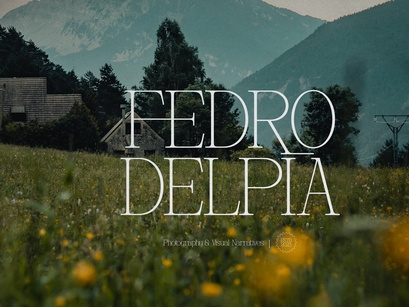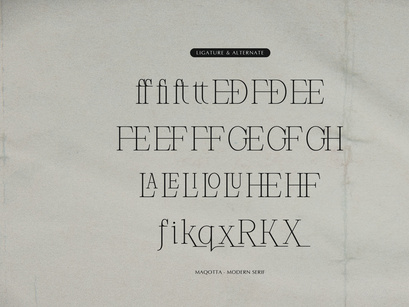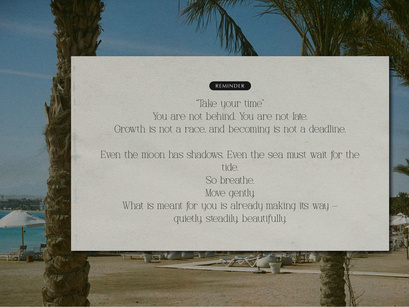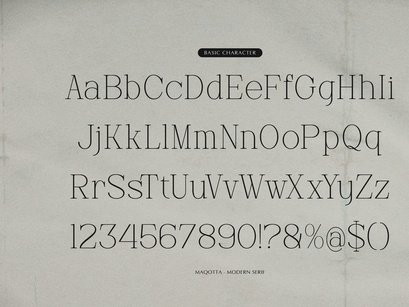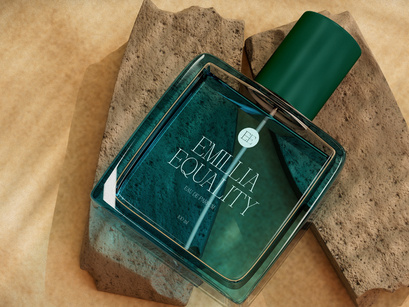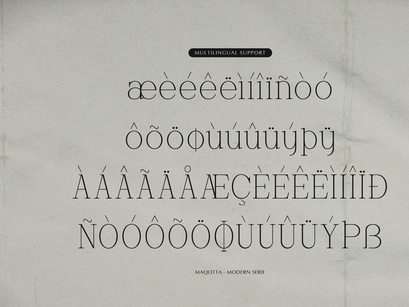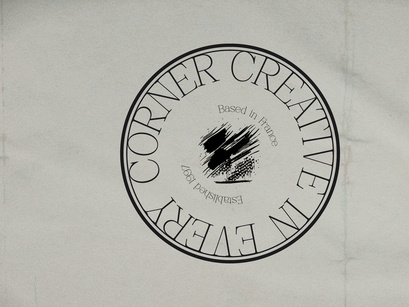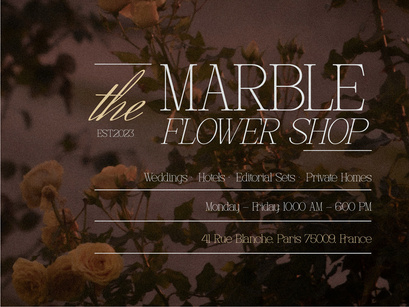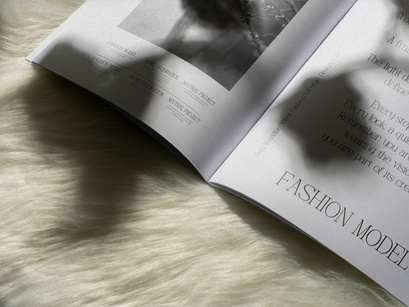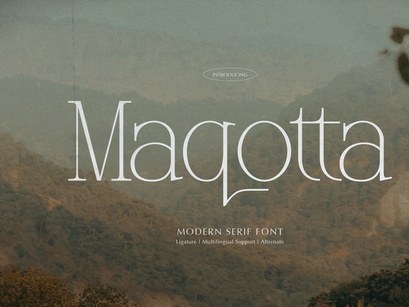
Maqotta | Modern Serif Font, from Gracetypestudio, suitable for any projects such as: logos, branding projects, homeware designs, product packaging, mugs, quotes, posters, shopping bags, t-shirts, book covers, name card, invitation cards, greeting cards, label, photography, watermark, special events, and all your other lovely projects that need a Modern Serif Font taste.